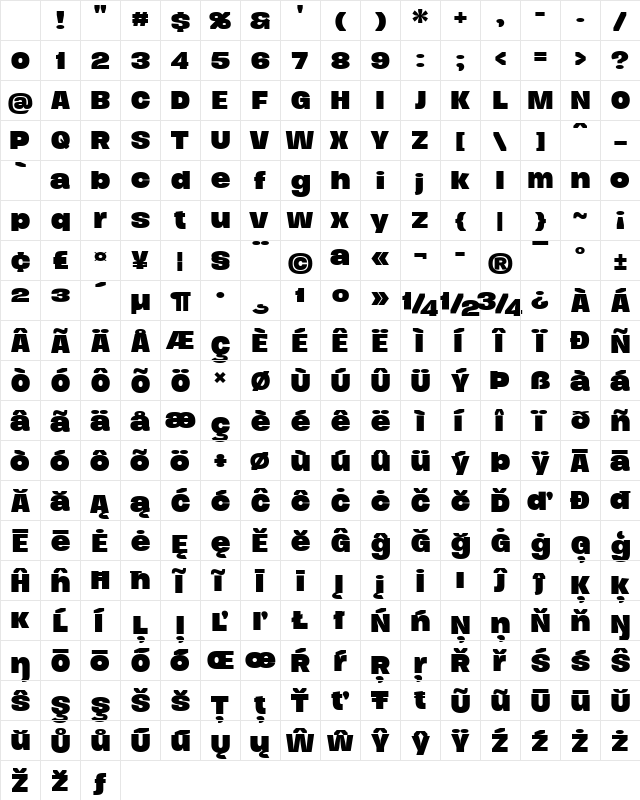
Complete Duera PERSONAL USE Expanded Bold glyph index. Displaying only characters natively supported by Duera PERSONAL USE Expanded Bold font.
Duera PERSONAL USE Expanded is a composed and adaptable typeface that performs quietly and consistently across a wide range of design contexts. Its bold stroke weight gives it real presence on the page.